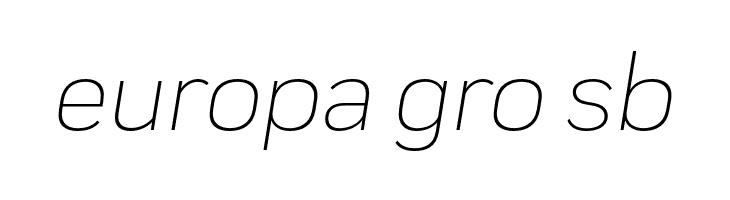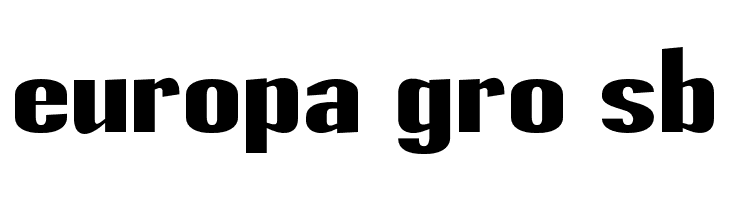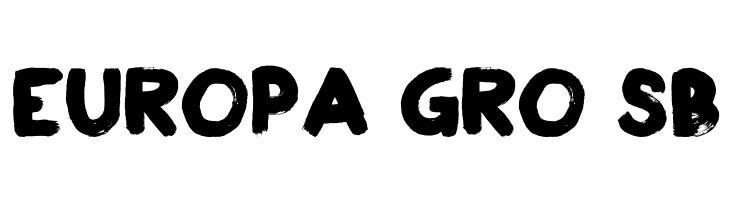
A distressed serif font with a vintage, textured appearance.
A bold, brush-style font with a hand-painted, artistic appearance.
A bold, slightly italicized font with a playful and dynamic style.
A modern, light sans-serif font with geometric structure and balanced spacing.
A sleek, modern, light italic sans-serif font with elegant slanted characters.
A bold, geometric font with strong strokes and high readability.
A structured, easy-to-read font ideal for educational use, featuring lined guidance for handwriting practice.
A clean, rounded font with a friendly and approachable style.
Bold, italic font with shadowed, three-dimensional effect.
A bold, high-contrast serif font with a modern and elegant style.